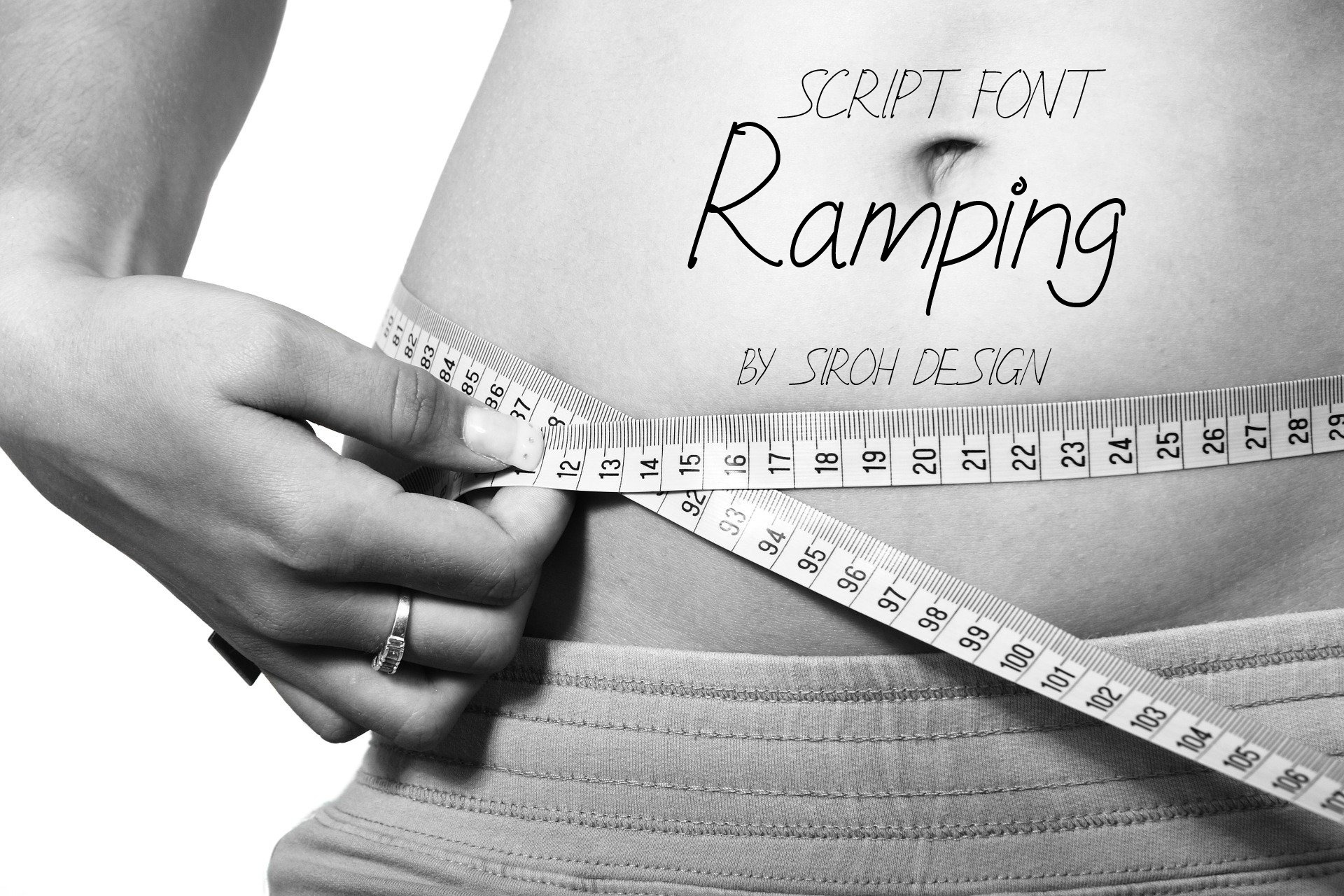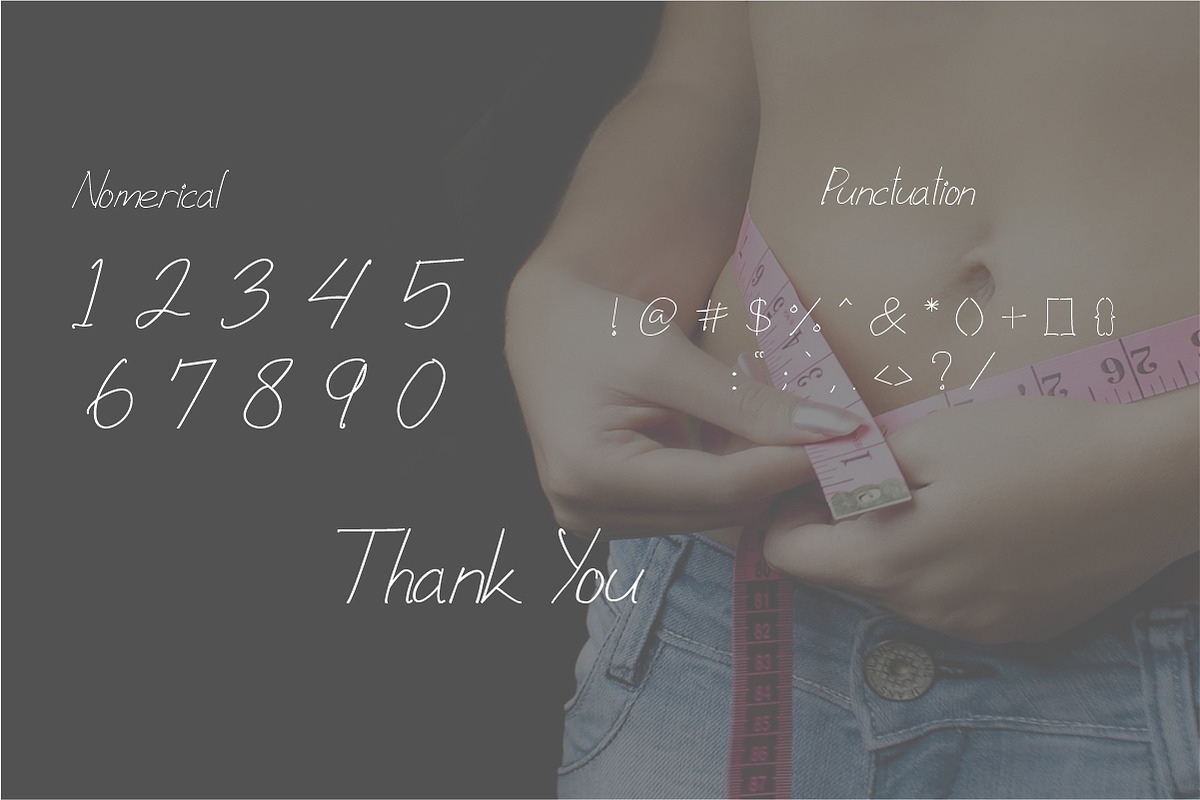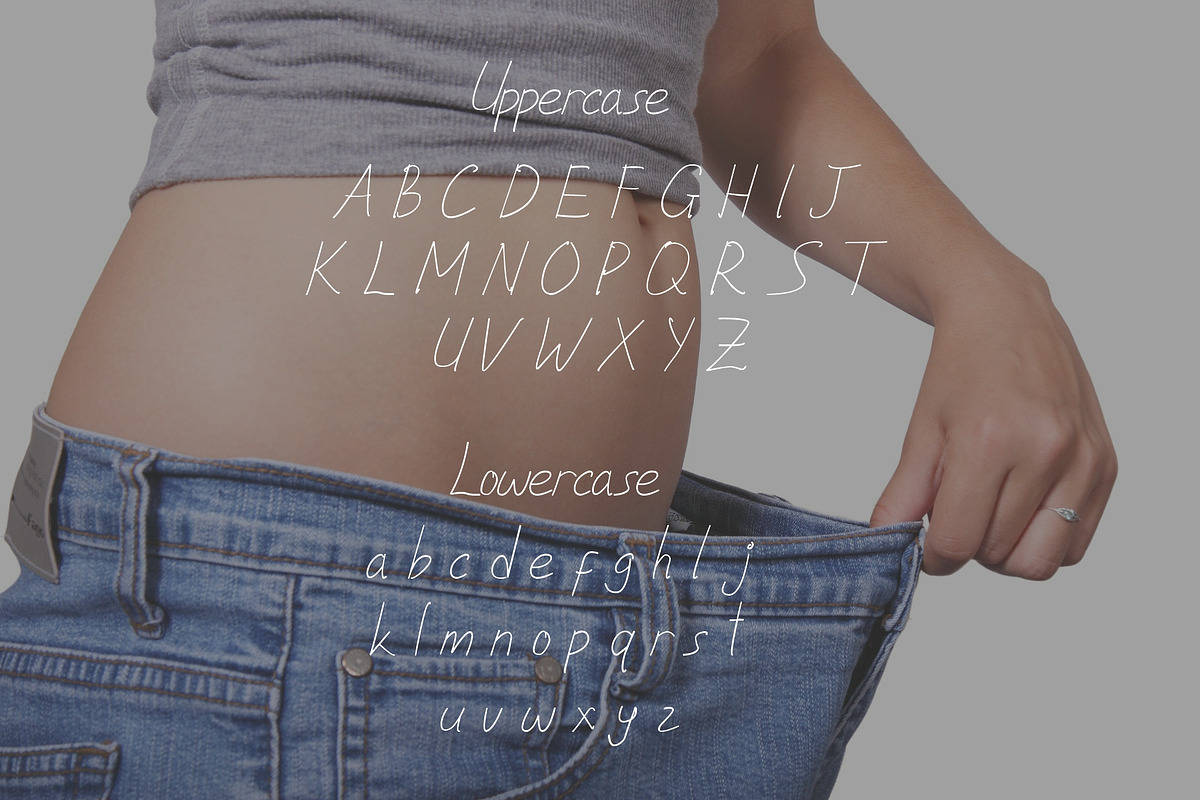
Ramping Font
Ramping is a thin and clean lettered handwritten font. It is the best choice for creating eye catching logos, branding and quotes. Every letter has a unique and beautiful touch, which will make your design come alive!